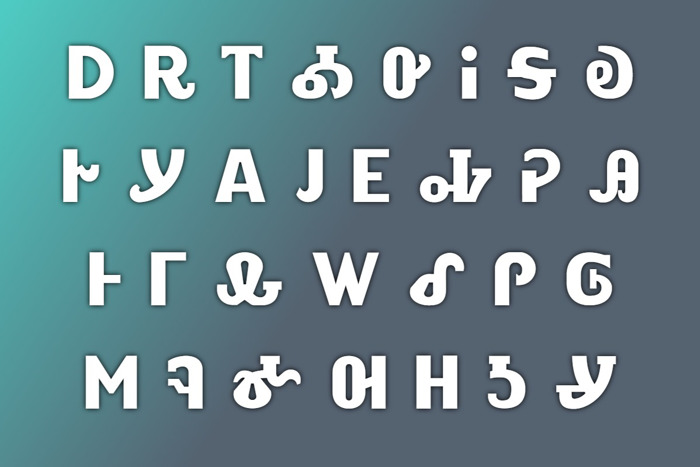
ALEWISDODI Font
This is a Cherokee Unicode typeface. ALEWISDODI means stop in Cherokee. It was my intention to create "road" signage fonts for the Cherokee nation. as in STOP sign or YIELD sign in both Cherokee syllables and English letters etc.
i forgot to translated into English. Alewisdodi means stop. this font was design for stop signs or yield signs its a display font for road sign for the Cherokee nation. that was my intentions.
March 11, 2014. i updated new version of this font. design of the cherokee syllabary are different. I also fix some kerning problems.
This is a Cherokee unicode font.